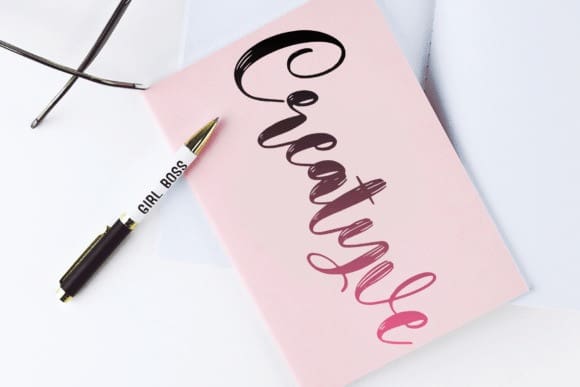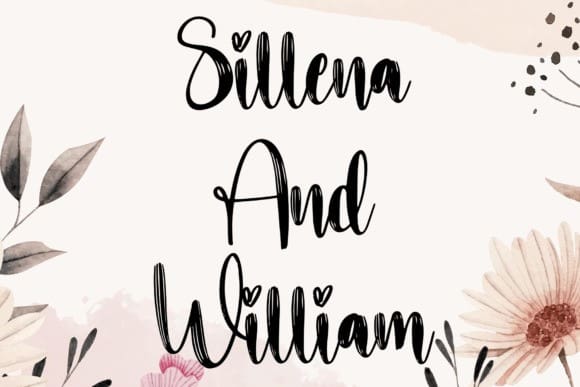
Sweety Valentine Font
Sweety Valentine Font is a bold and gorgeous handwritten brush script font. Its unique look will help you bring your projects to their highest levels.